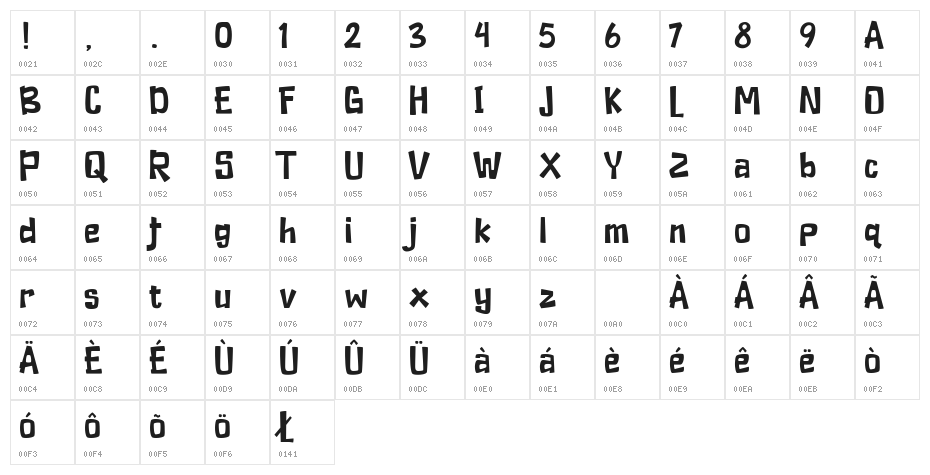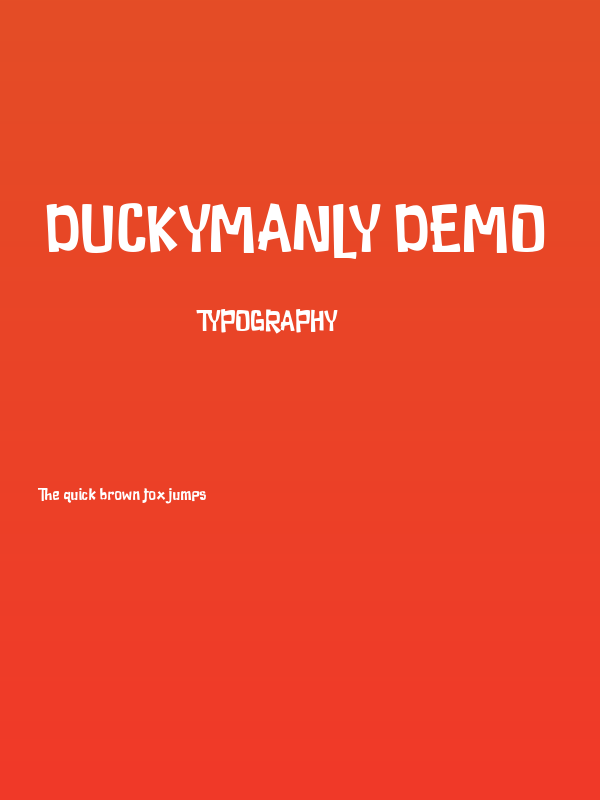
Duckymanly Demo Font
Duckymanly Demo Description
This font features a playful and bold design with a hand-drawn aesthetic. The characters are slightly irregular, giving it a whimsical and informal feel. The uppercase letters are robust and have a strong presence, while the lowercase letters maintain a consistent style with a touch of quirkiness. The numbers are bold and easily readable, matching the overall playful theme. The special characters are designed to complement the alphabet, maintaining the same bold and quirky style. This font is ideal for projects that require a fun and engaging look.
| Overall Style | Playful and Whimsical |
| Proposed Projects | Perfect for children's books, comic strips, playful branding, and creative posters. |